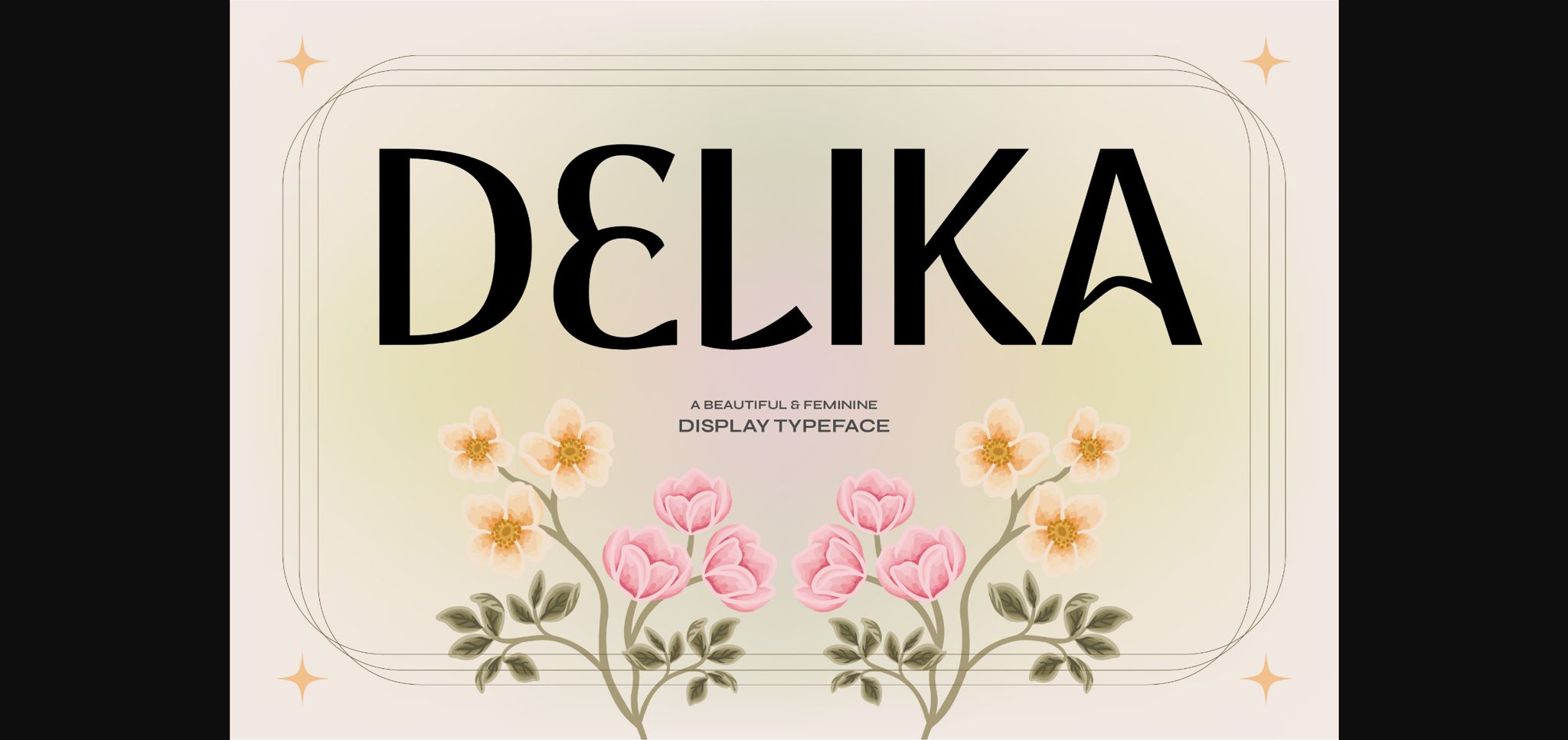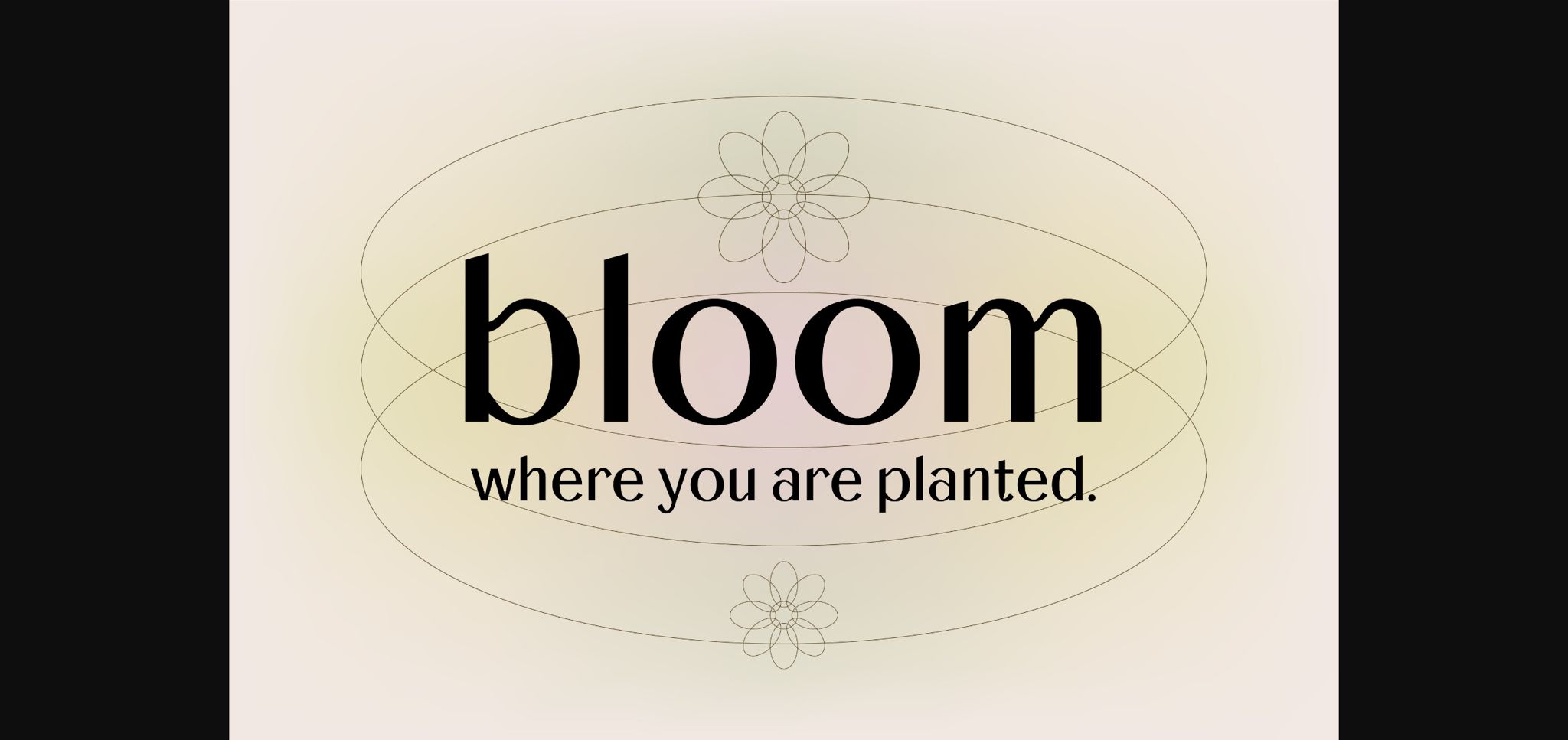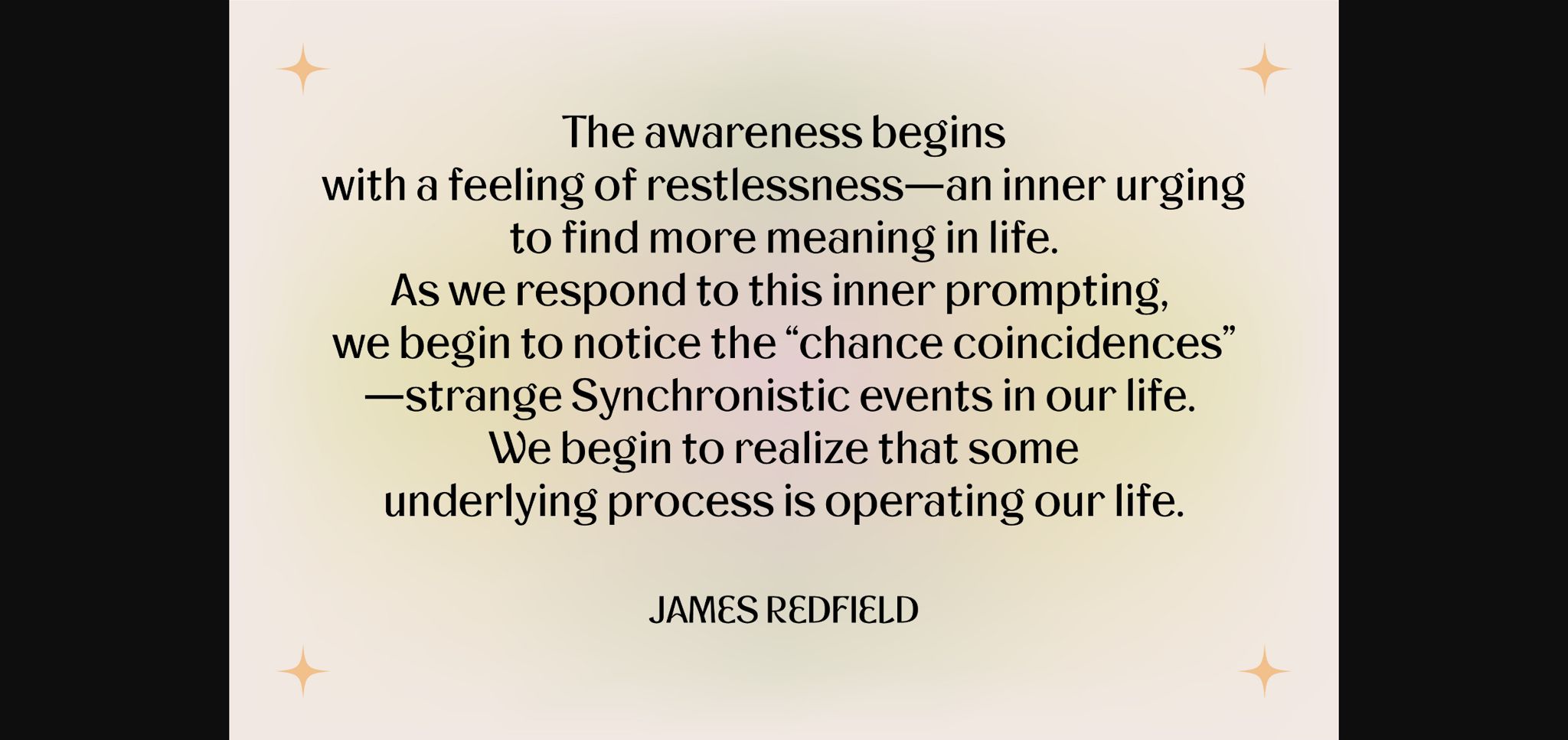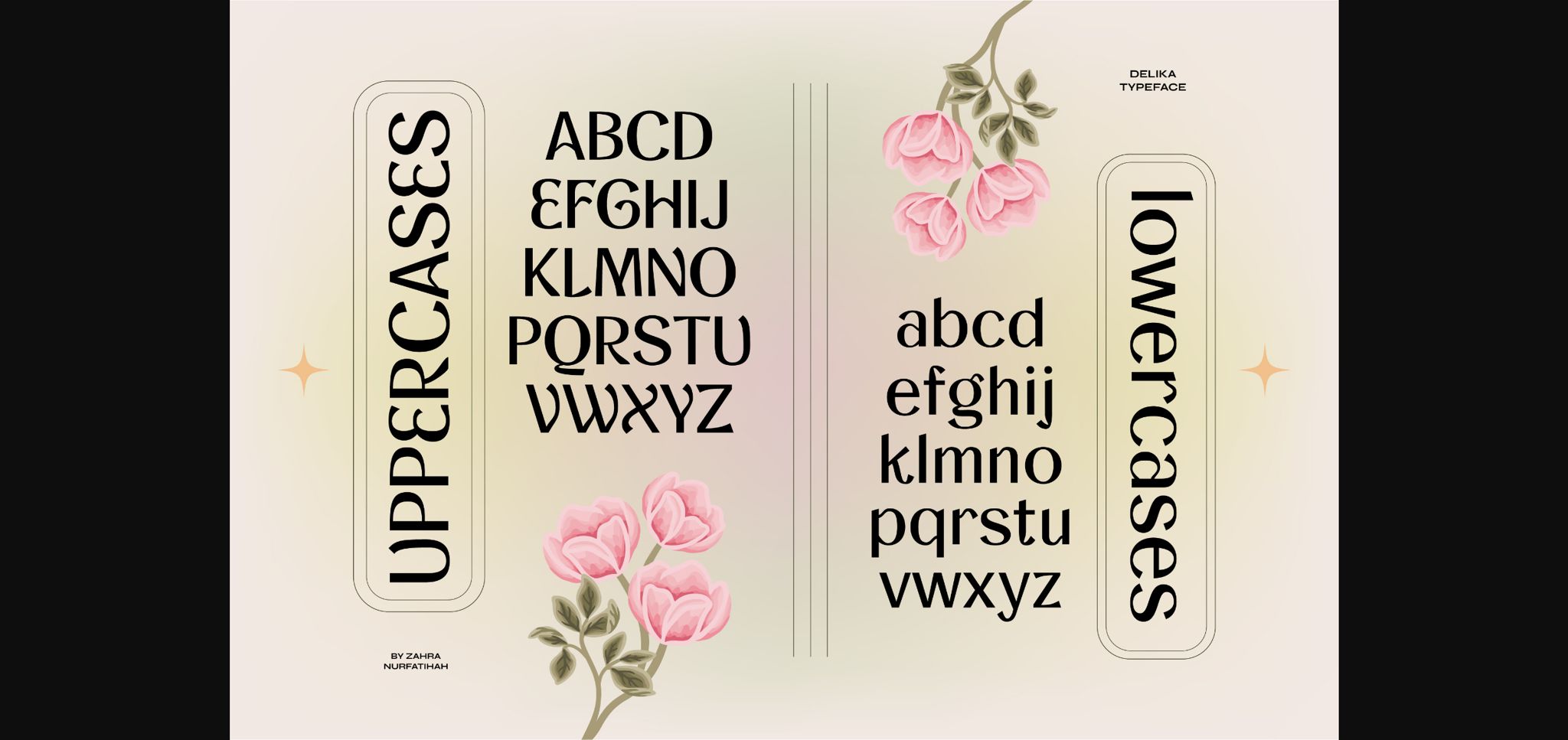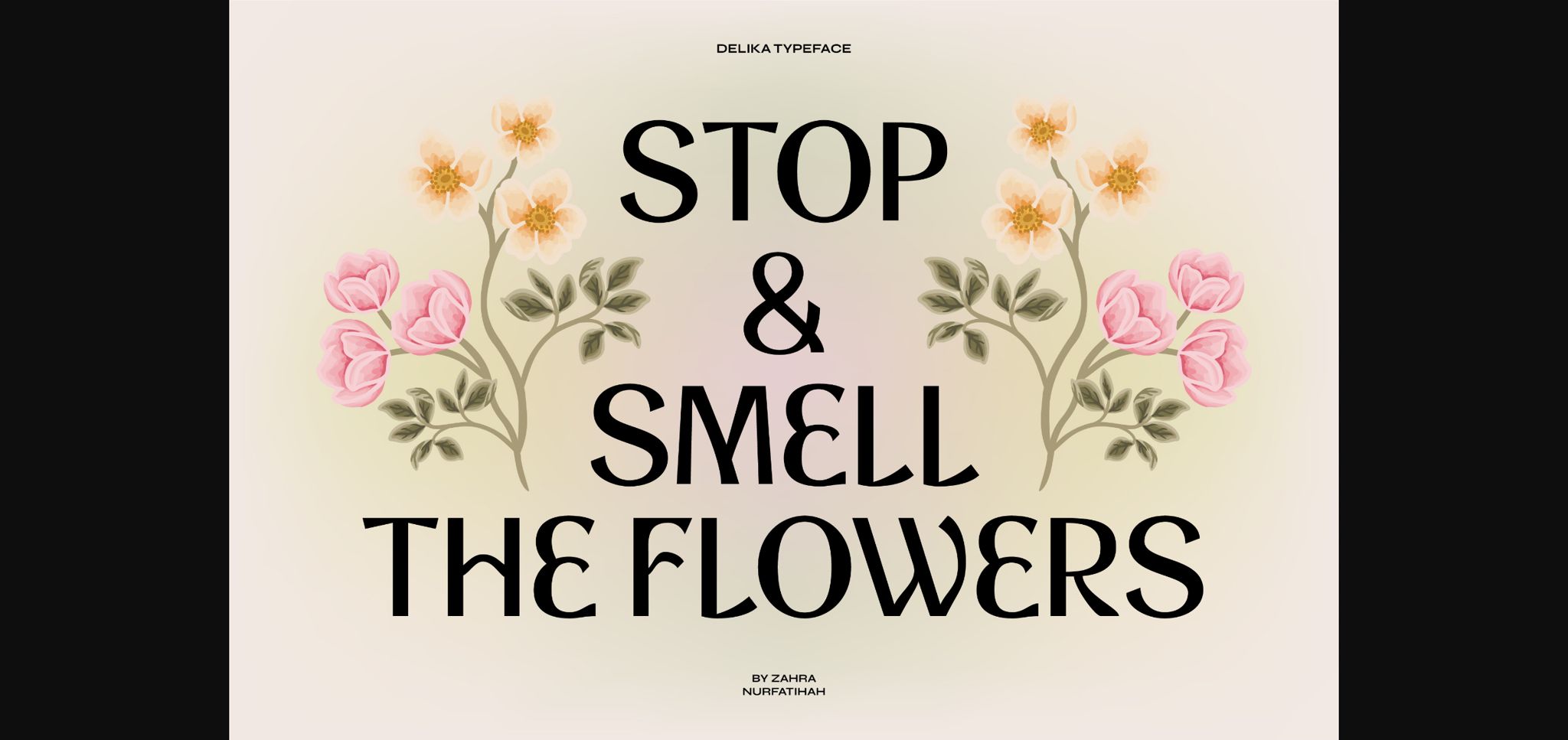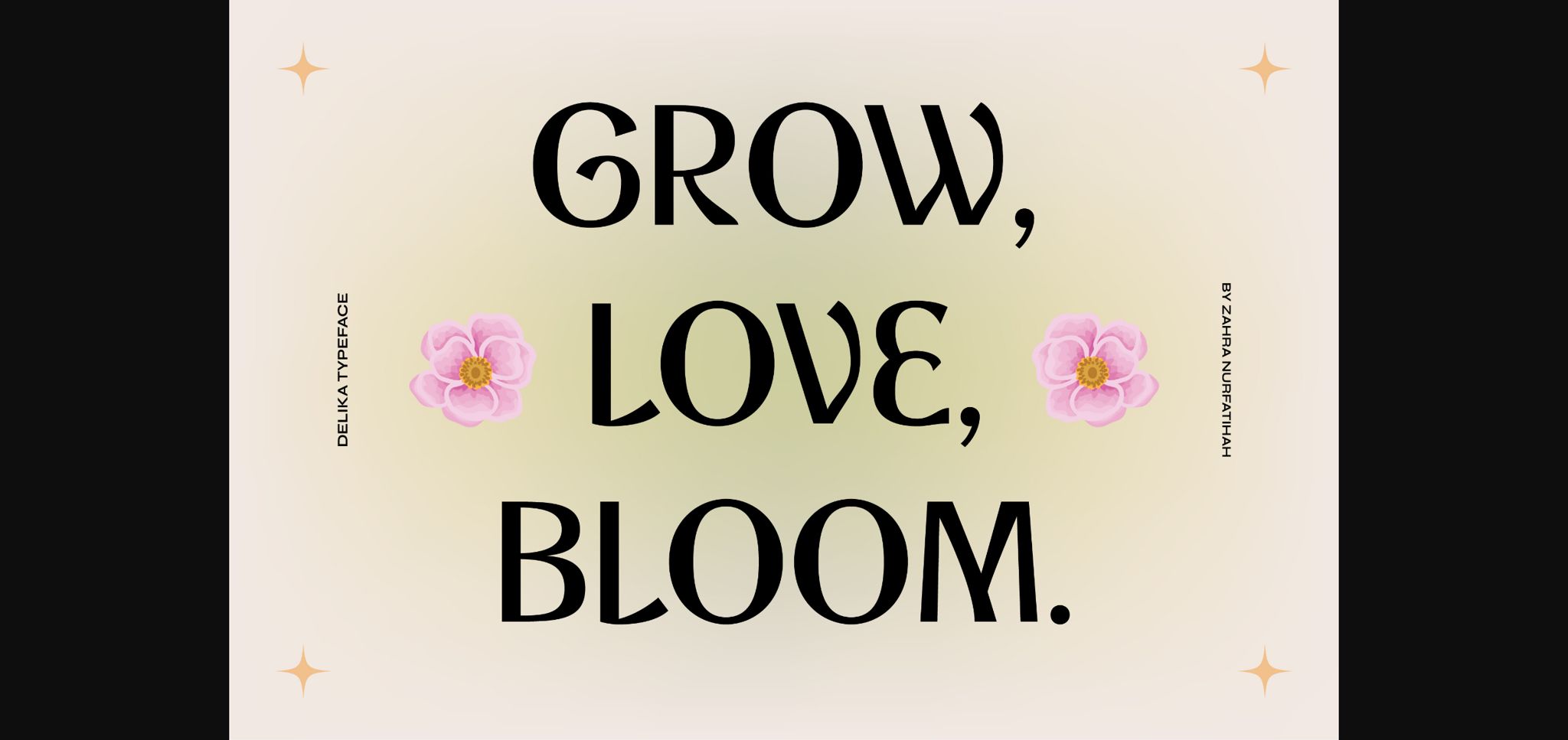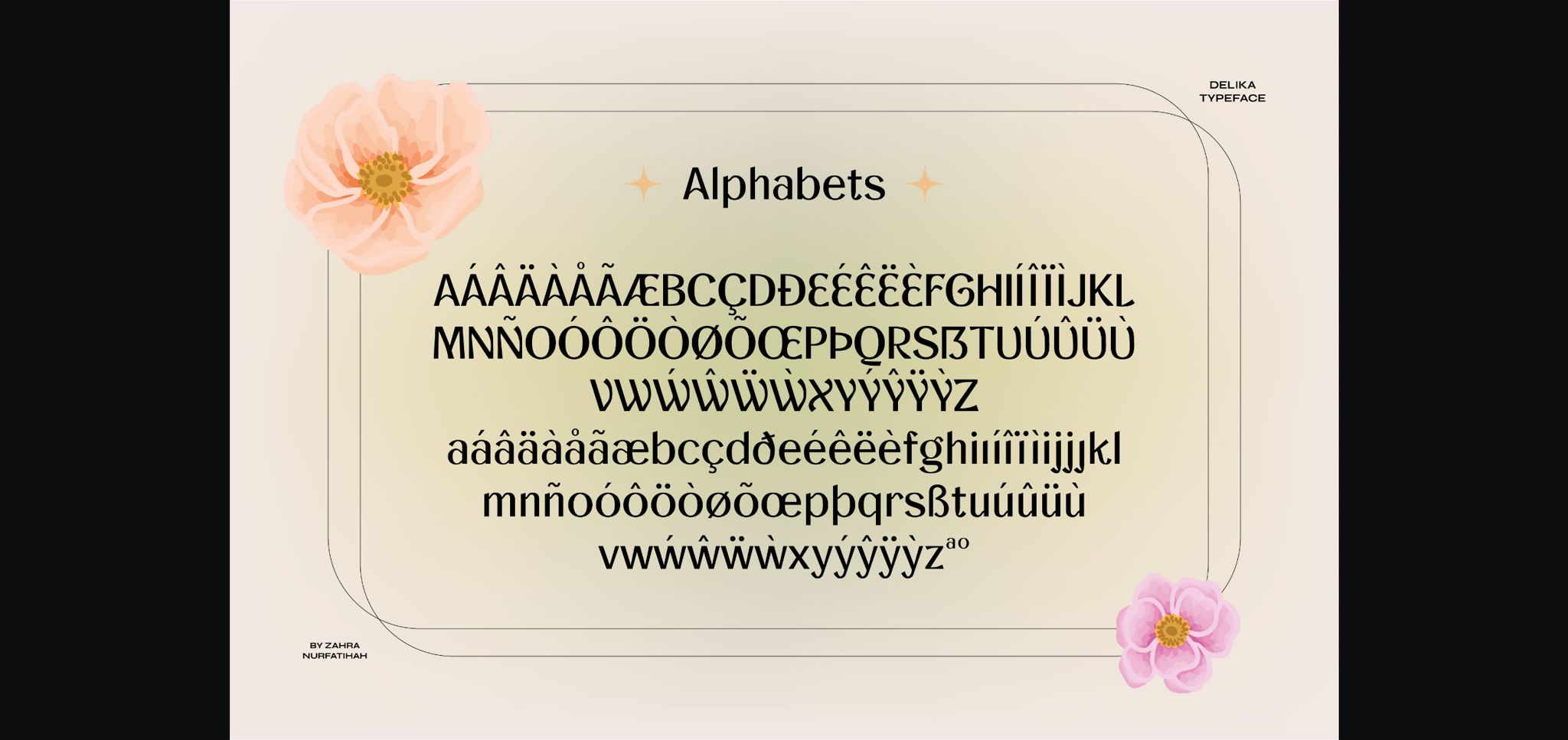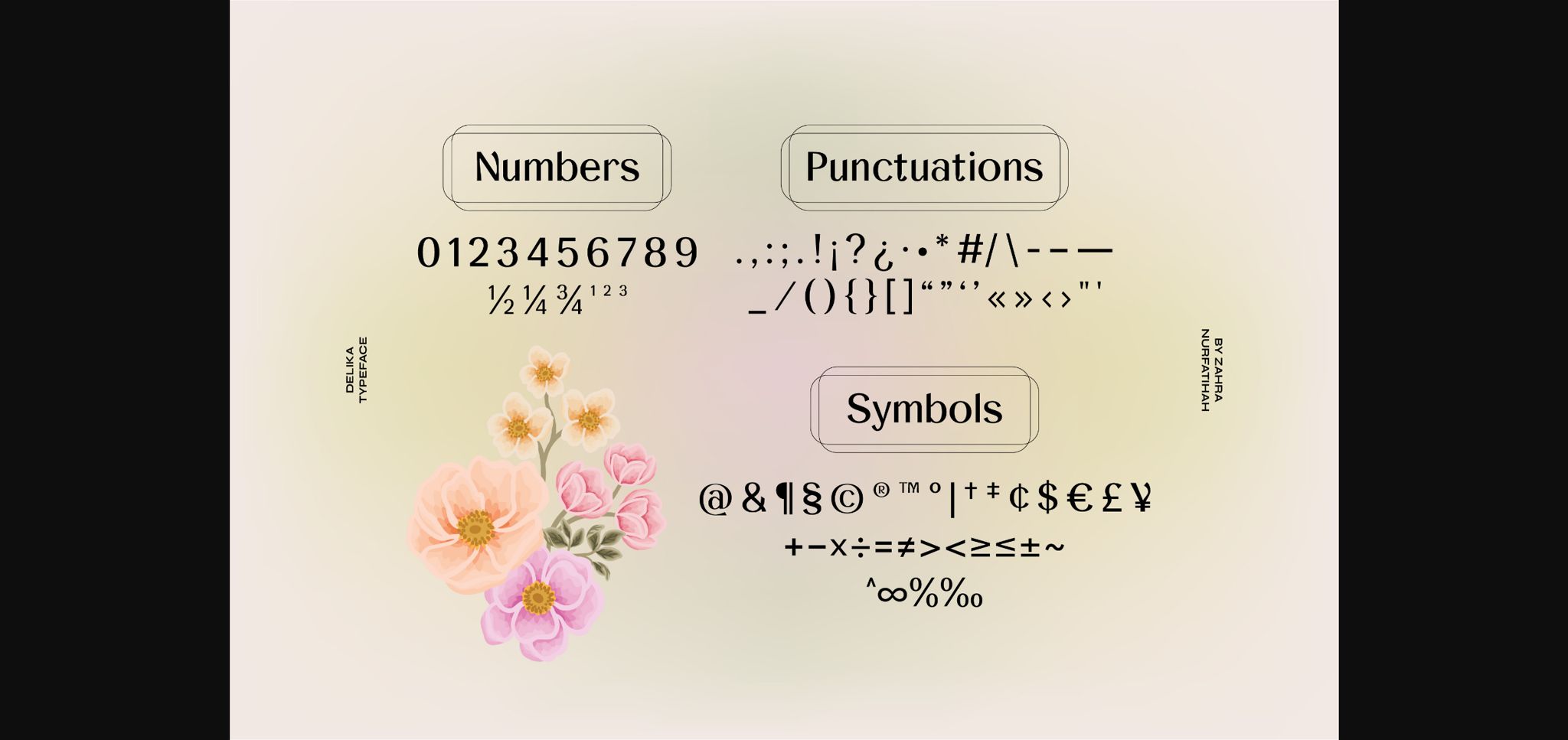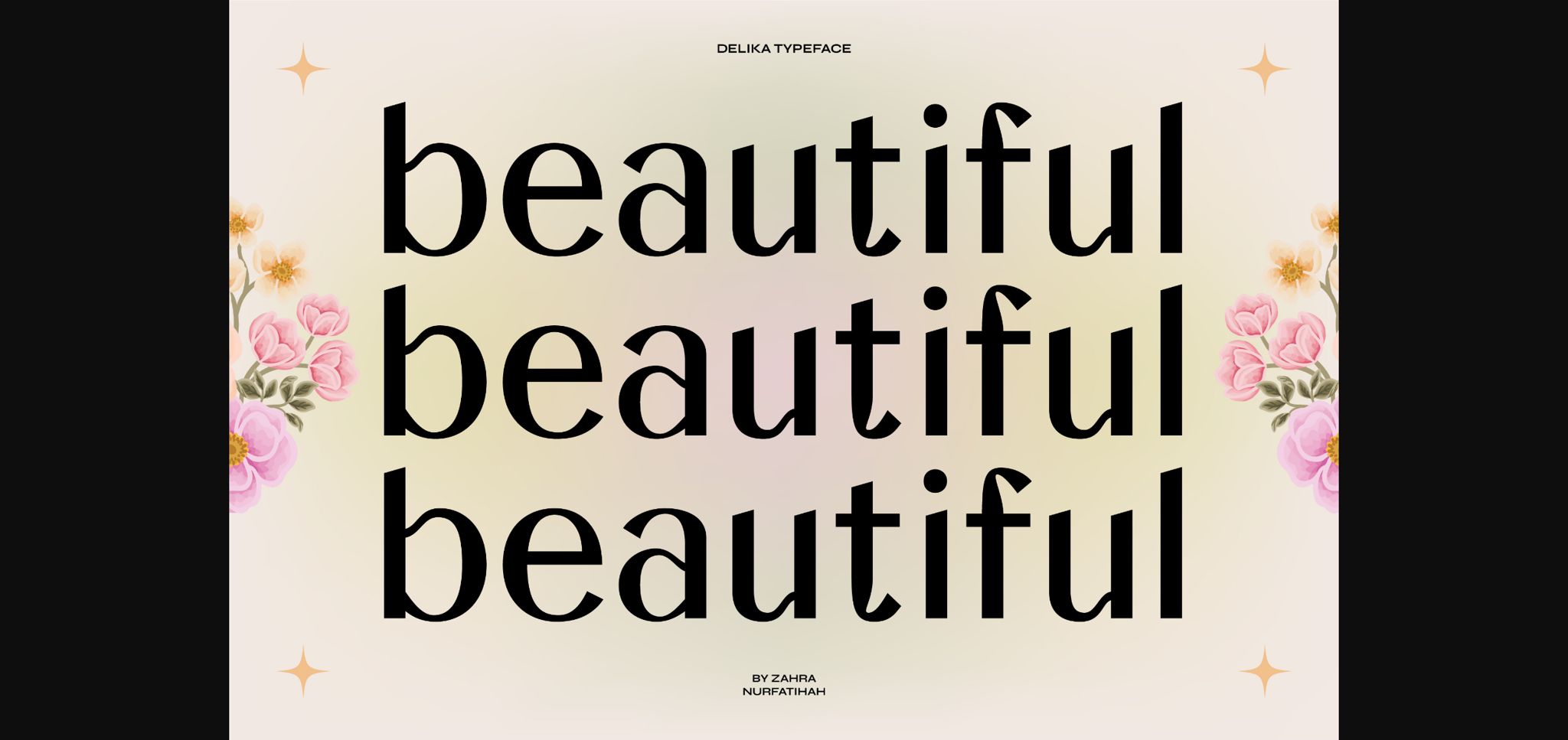
Delika Font
About Delika Font
Introducing Delika, a gorgeous display sans serif typeface gracefully bridging the gap between minimalistic simplicity and fluid femininity. Its design elegantly blends rigid straight lines with organic, flowing shapes, creating a typeface that exudes a uniquely beautiful charm. Delika’s versatility shines across various design applications. It effortlessly enhances the aesthetic appeal of branding designs, book covers, logos, and even magazine layouts and posters. This unique fusion of styles in Delika makes it a standout choice for designers everywhere, adding a delicate touch of sophistication to any design project.